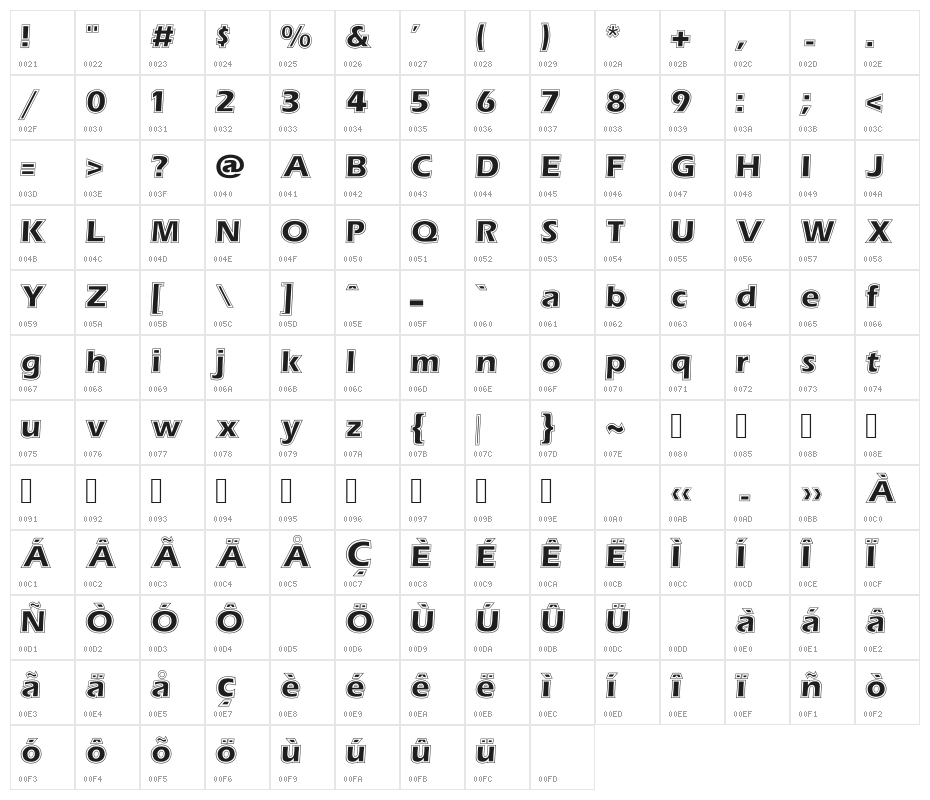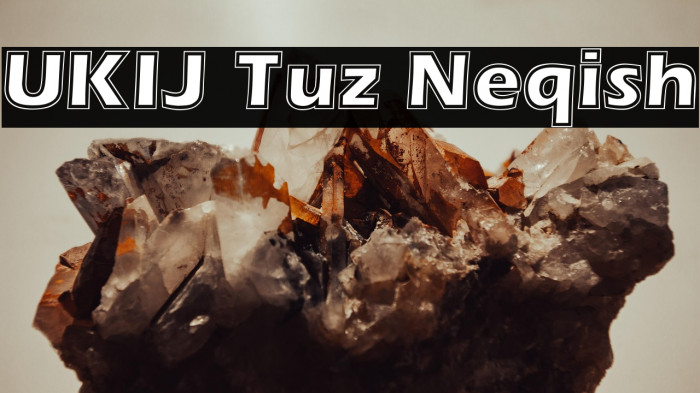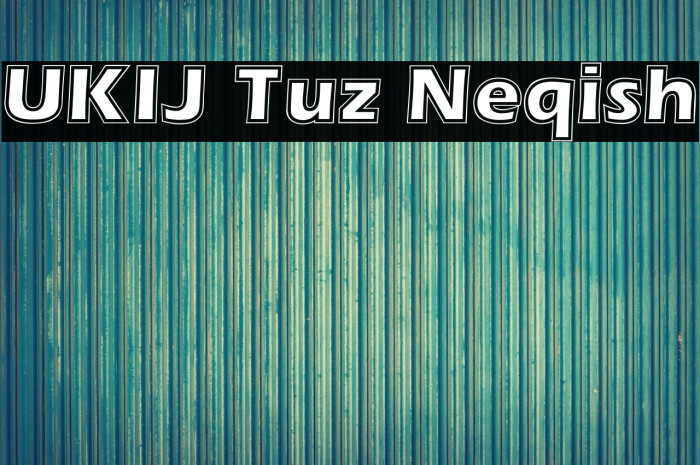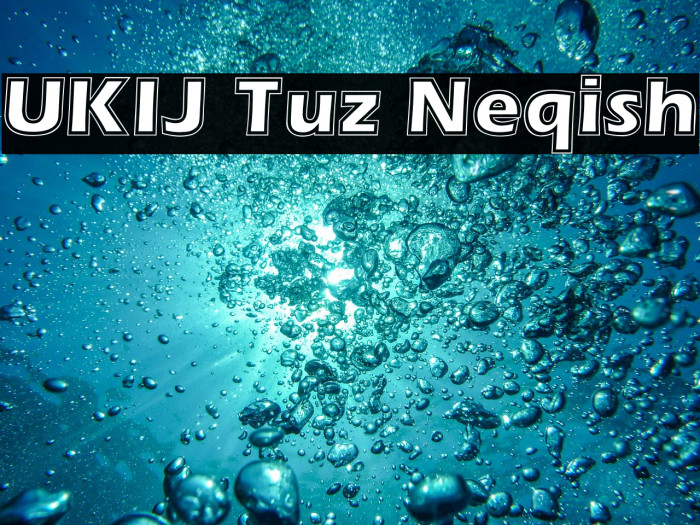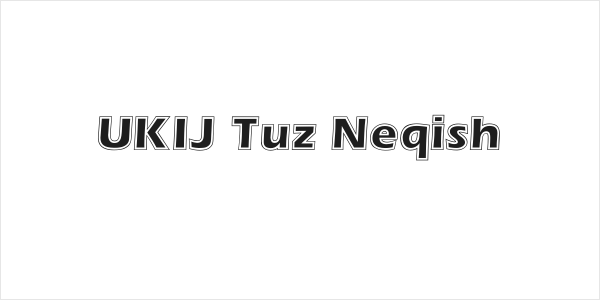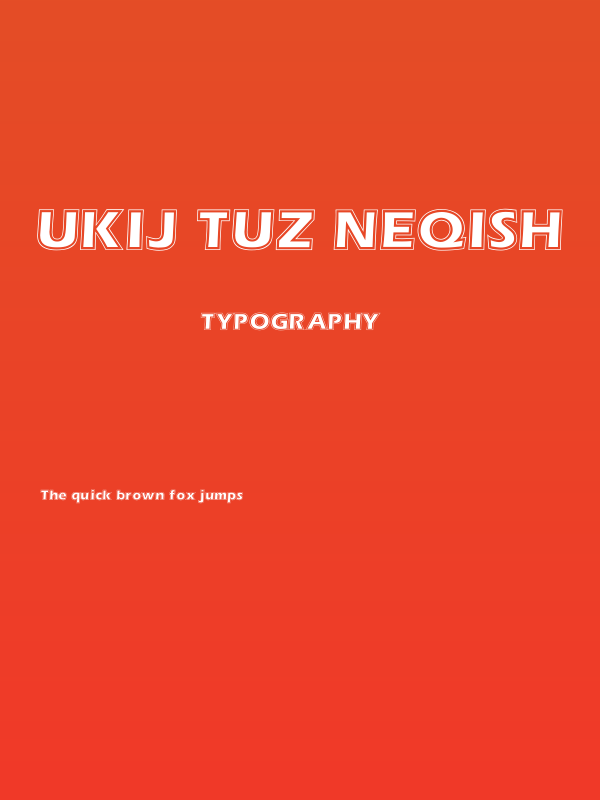
UKIJ Tuz Neqish Font
UKIJ Tuz Neqish Description
This font features bold, uppercase and lowercase letters with a distinct outline that gives it a three-dimensional effect. The characters are well-defined with a strong presence, making them highly legible. The numbers and special characters follow the same bold style, ensuring consistency across all elements. The font's design is modern and eye-catching, suitable for making statements in various design contexts. Its structured form and clear lines make it versatile for both digital and print media.